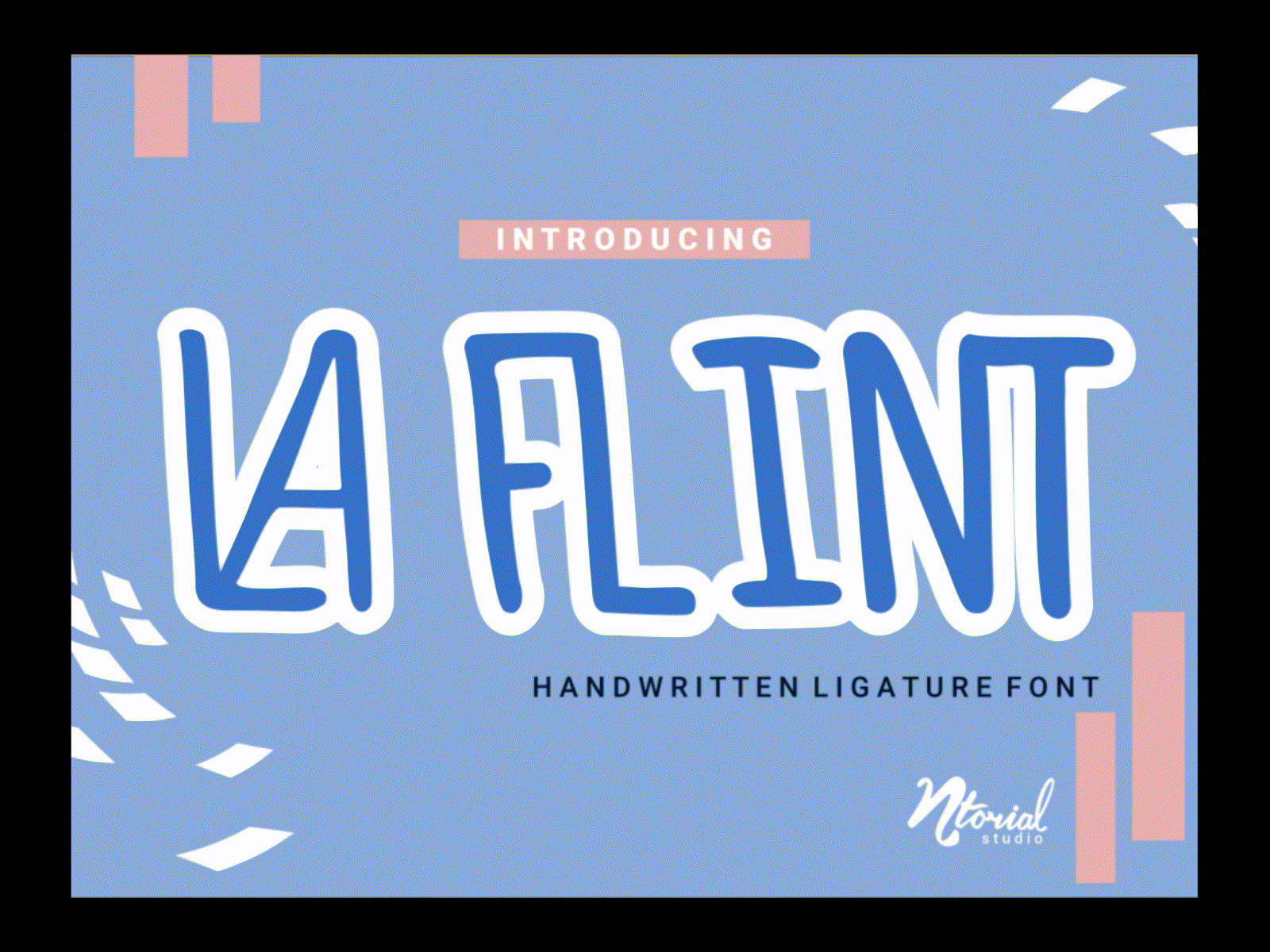
La Flint Font - Handwritten Ligature Font
LA FLINT Font is a unique handwritten ligature font with right angle design. It was manually craft for your design’s need. LA FLINT Font includes full set of gorgeous uppercase and lowercase letters, numerals, a large range of punctuation, stylistic alternate and ligatures. This font is available in regular and italic options, so you can mix and match it together • La Flint Font Regular & Italic (OTF/TTF) • Standard glyphs • Ligature Collection • Works on PC & Mac • Simple installations • Accessible in the Adobe Illustrator, Adobe Photoshop, Adobe InDesign, even work on Microsoft Word. • PUA Encoded Characters – Fully accessible without additional design software. • Fonts include multilingual support